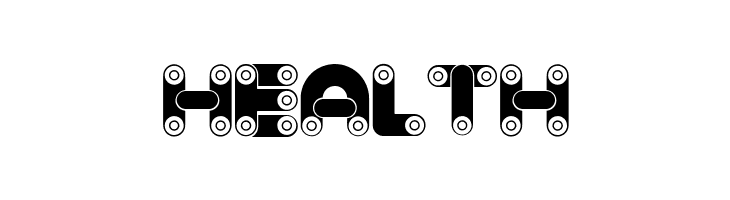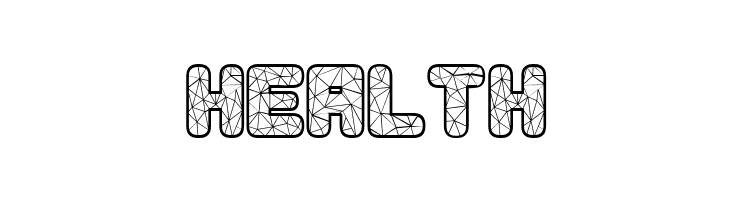
A bold, geometric font with sharp angles and unique cutouts.
A bold, decorative font with high contrast and playful boxed letters.
A bold, decorative font with a 3D effect and intricate line patterns.
A bold, hollow, and decorative font with a three-dimensional, artistic style.
A bold, decorative font with hollow interiors and intricate detailing.
A bold, decorative font with a mechanical and futuristic design.
A bold, hollow, and three-dimensional decorative font with a modern look.
A bold, geometric font with a unique outline style and futuristic design.
A bold, 3D geometric font with an angular, industrial style.
A geometric, angular font with a gemstone-like design, perfect for decorative use.
A piano key-inspired font with high contrast and a bold, artistic style.
A decorative and geometric font with bold, artistic designs.
A bold, decorative font with a vintage 3D effect and strong outlines.
A playful font with each character depicted as a cartoon vampire face.
A modern serif font with high contrast and sharp serifs.
A whimsical font featuring stylized pig faces as characters.
A sleek, italicized font with a modern and dynamic style.
A geometric, structured font with a modern, technical aesthetic.
A modern, geometric sans-serif font with rounded edges and a minimalist design.
A bold, geometric font with a three-dimensional, retro-futuristic style.
Bold, 3D decorative font with playful style.
Bold decorative font with cut-out details.
A decorative font with an intricate, pipe-like design and bold geometric structure.
A bold, geometric font with overlapping circular patterns creating a modern and dynamic look.
A sleek, futuristic italic font with extended characters and a modern vibe.
A futuristic, geometric font with a sleek, modern aesthetic and extended width.
A sleek, italic font with a futuristic and dynamic design.
A futuristic, geometric font with bold, angular lines.
A bold, geometric, and italicized font with high contrast and tight spacing.
A bold, geometric font with a modern and industrial aesthetic.
A bold, hollow, italic font with a three-dimensional effect.
A bold, hollow font with geometric and angular design, featuring thick outlines.
A bold, outlined font with a modern, dynamic style and a slight italic slant.
A bold, geometric font with a shadowed, three-dimensional effect.
A bold, three-dimensional font with a shadow effect, ideal for striking headlines.